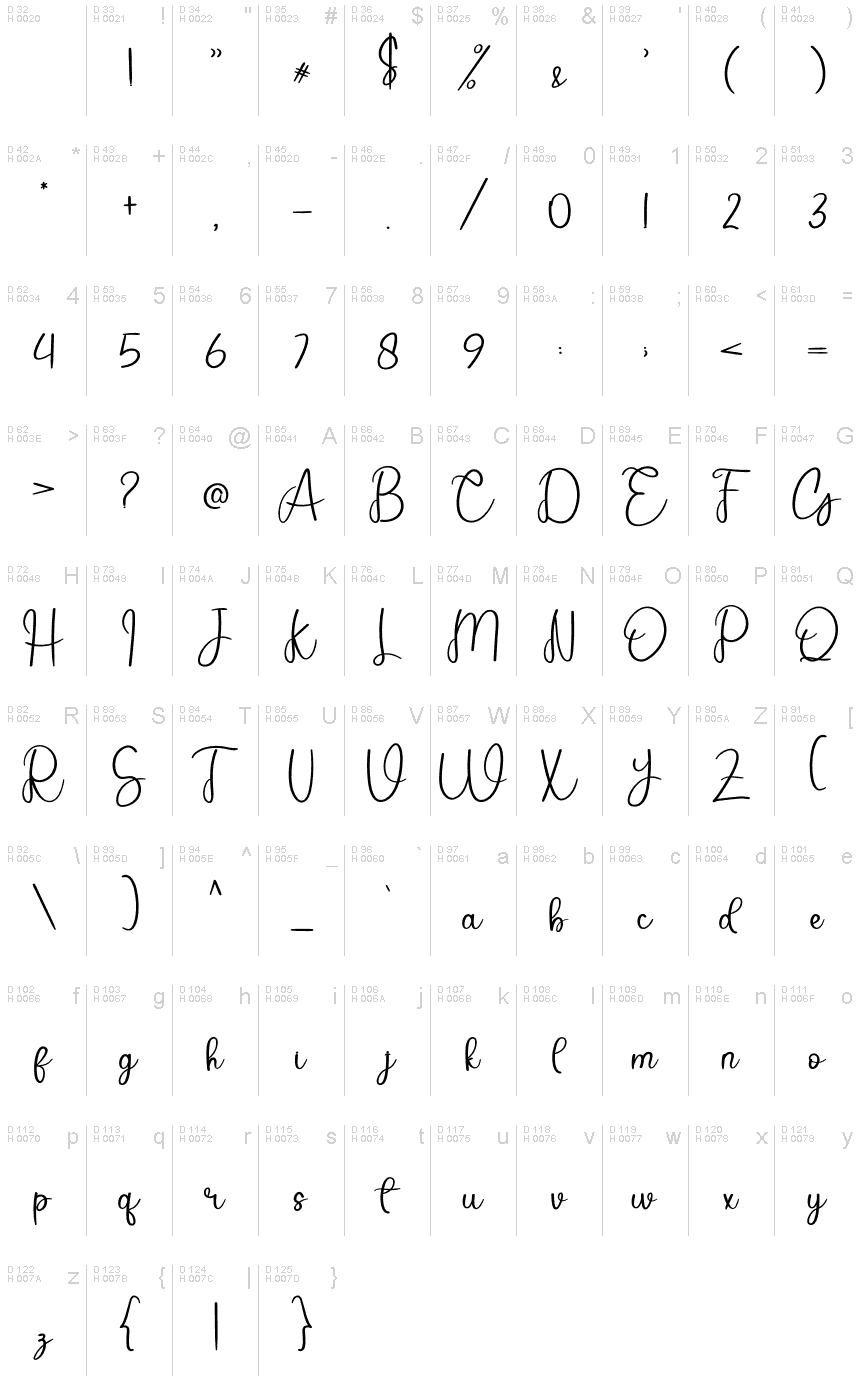
Viona
Viona, designed by Etik Fatimah, is a semi-light handwritten font that exudes boldness and coolness. With a modern and futuristic vibe, this font lends itself perfectly to various creative projects.
Whether you're working on branding materials for a tech startup, designing an album cover for an indie band, or creating eye-catching social media graphics, Viona will add a touch of uniqueness and sophistication to your work. Its handwritten style brings a sense of authenticity and personalization, making it suitable for anything from fashion magazines to art exhibitions.
Let Viona elevate your creative ideas and make them stand out in the crowd.